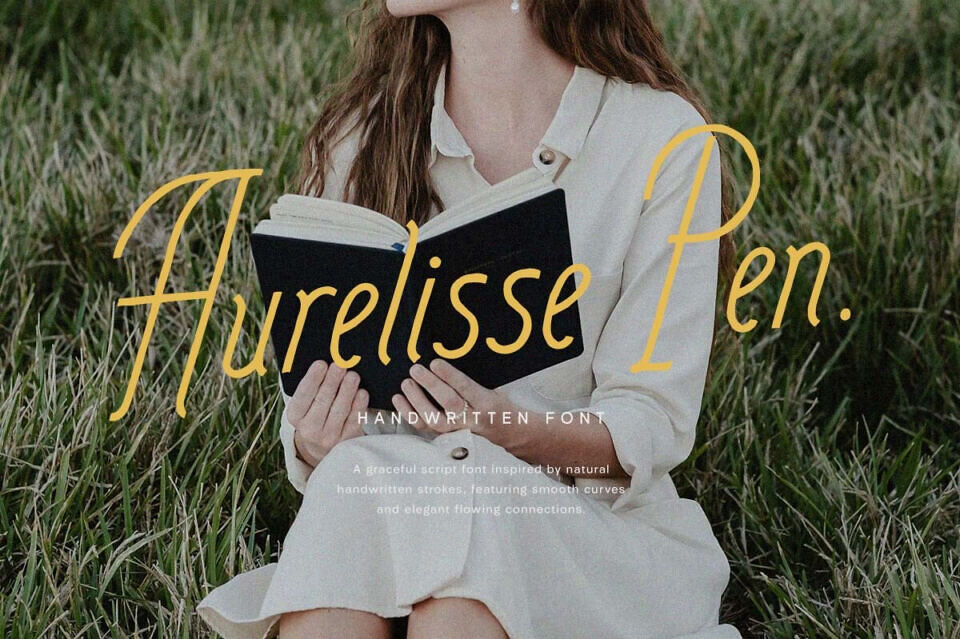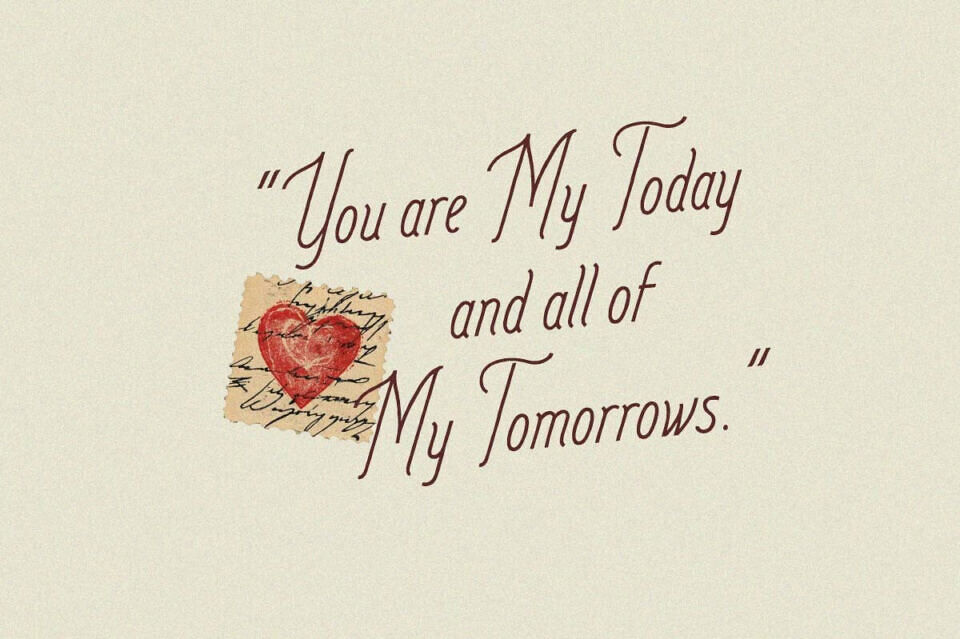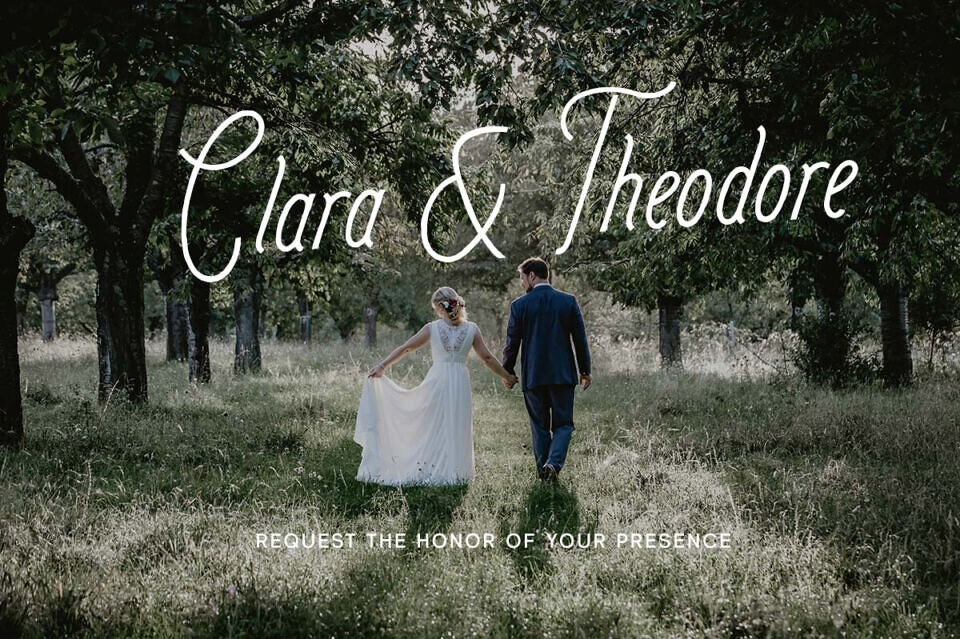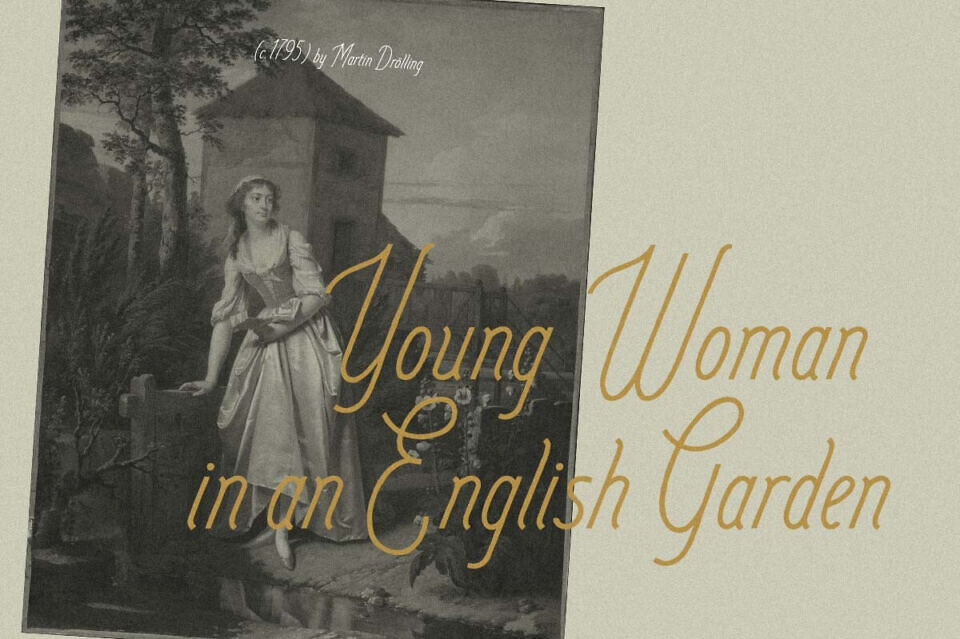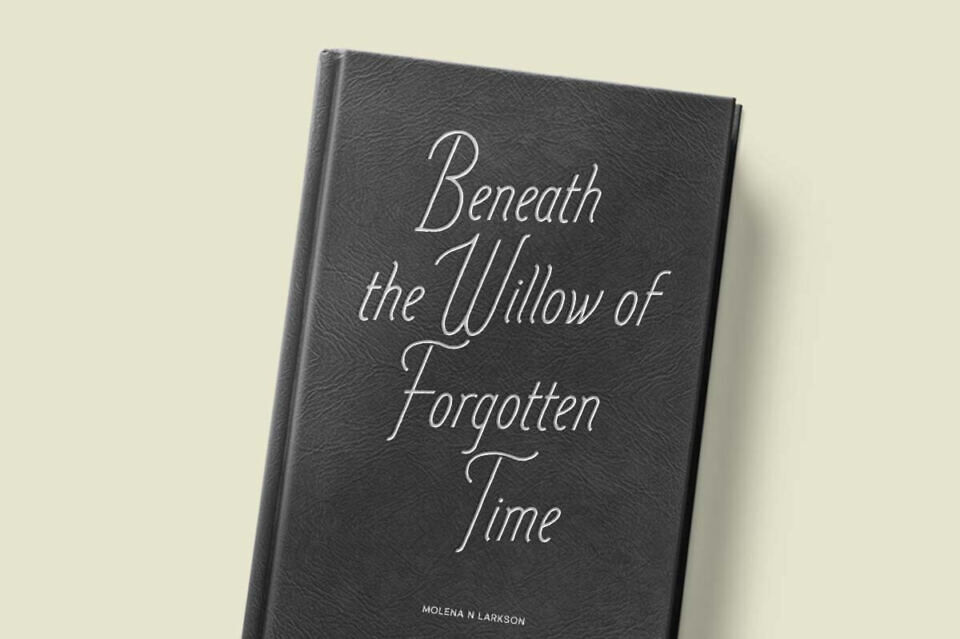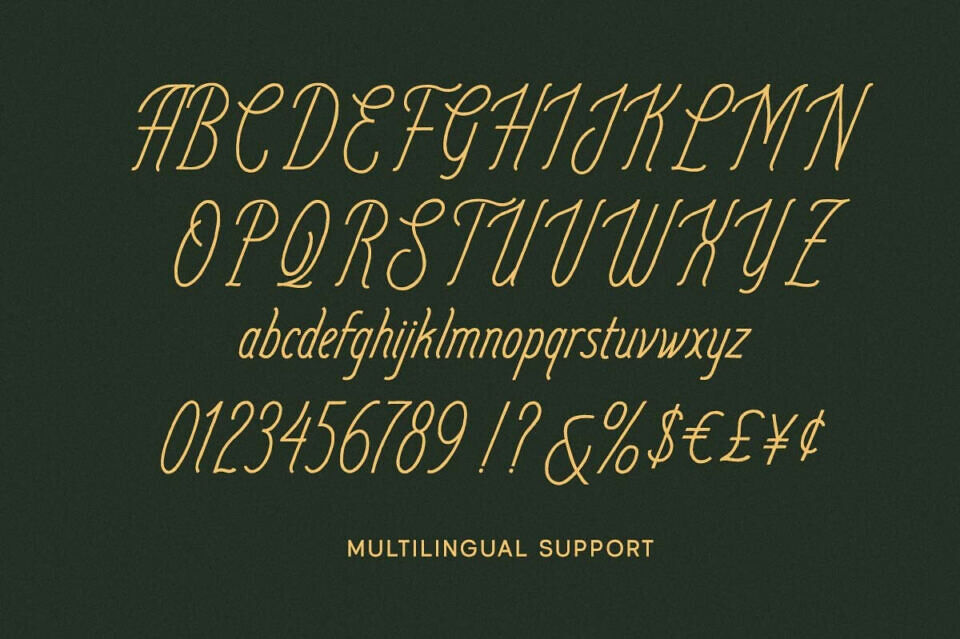
Aurelisse Pen moves like a quiet signature on a calm day—smooth, graceful, and effortlessly refined. The strokes flow with gentle confidence, blending soft curves and clean connections that feel natural and airy without losing clarity. It carries a subtle elegance with a relaxed handwritten touch, making every word feel personal yet polished.